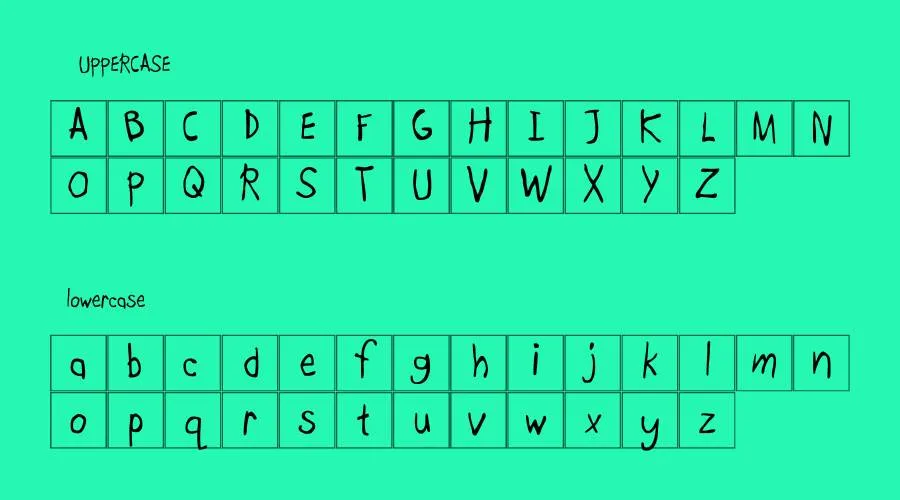
Boopee Font
About Boopee Font
Ray Larabie created the Boopee Font and you can download its free version from this source. The contemporary typeface is ideal for usage in ads, video game graphics, symbol design features, and certification designs.
The font can help any content shine due to its distinctive substance pattern. It is an intriguing typeface that may be used to create book covers, wall paintings, portfolio layouts, as well as packaging designs.